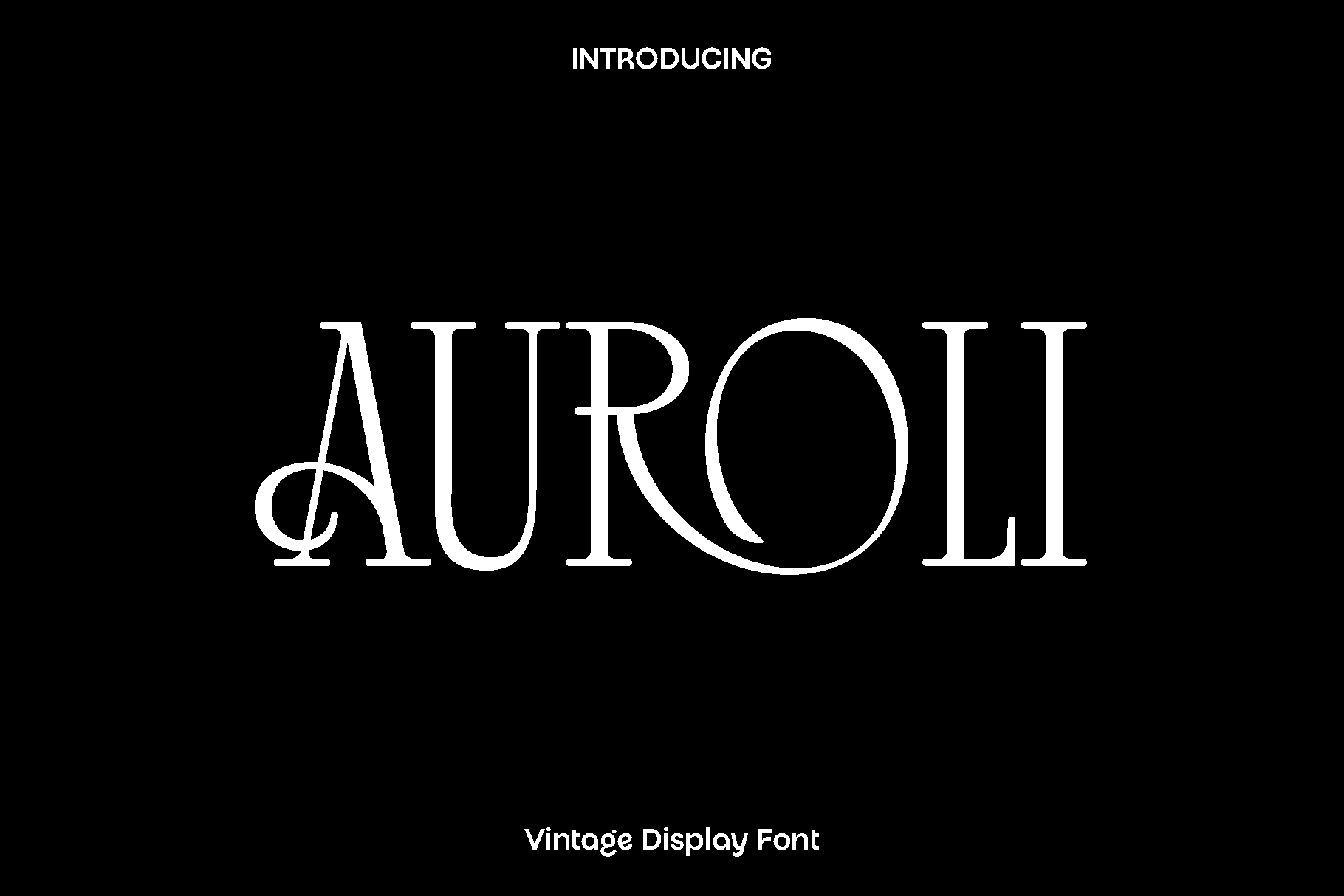
Aureli Vintage Display Font
Aureli is a carefully crafted vintage style font designed to capture the charm and character of classic typography. Inspired by timeless lettering from retro signage and heritage branding, Aureli brings warmth, authenticity, and personality into modern design. Every letter is drawn with precision and balance, giving the font a strong yet refined presence that feels nostalgic while remaining versatile for contemporary use.
This font shines in projects that need a distinctive and memorable voice. Aureli is perfect for branding design, logo creation, packaging, greeting cards, posters, headlines, labels, and editorial layouts. Its vintage aesthetic adds depth and storytelling to your designs, making them feel handcrafted, trustworthy, and visually engaging. Whether used in bold titles or supporting text, Aureli delivers clarity with character.
Aureli feels classic, confident, and expressive. It is an excellent choice for designers who want to evoke tradition, creativity, and originality in their work. From print to digital applications, this font enhances visual identity and helps designs stand out with a timeless appeal.
Aureli Vintage Style Font Features:
• Distinctive vintage inspired letterforms
• Clean and accurate character design
• Punctuation, numbers, and symbols
• Uppercase and lowercase
• OpenType features
Aureli is a reliable and stylish typeface that brings a classic spirit to modern design projects.